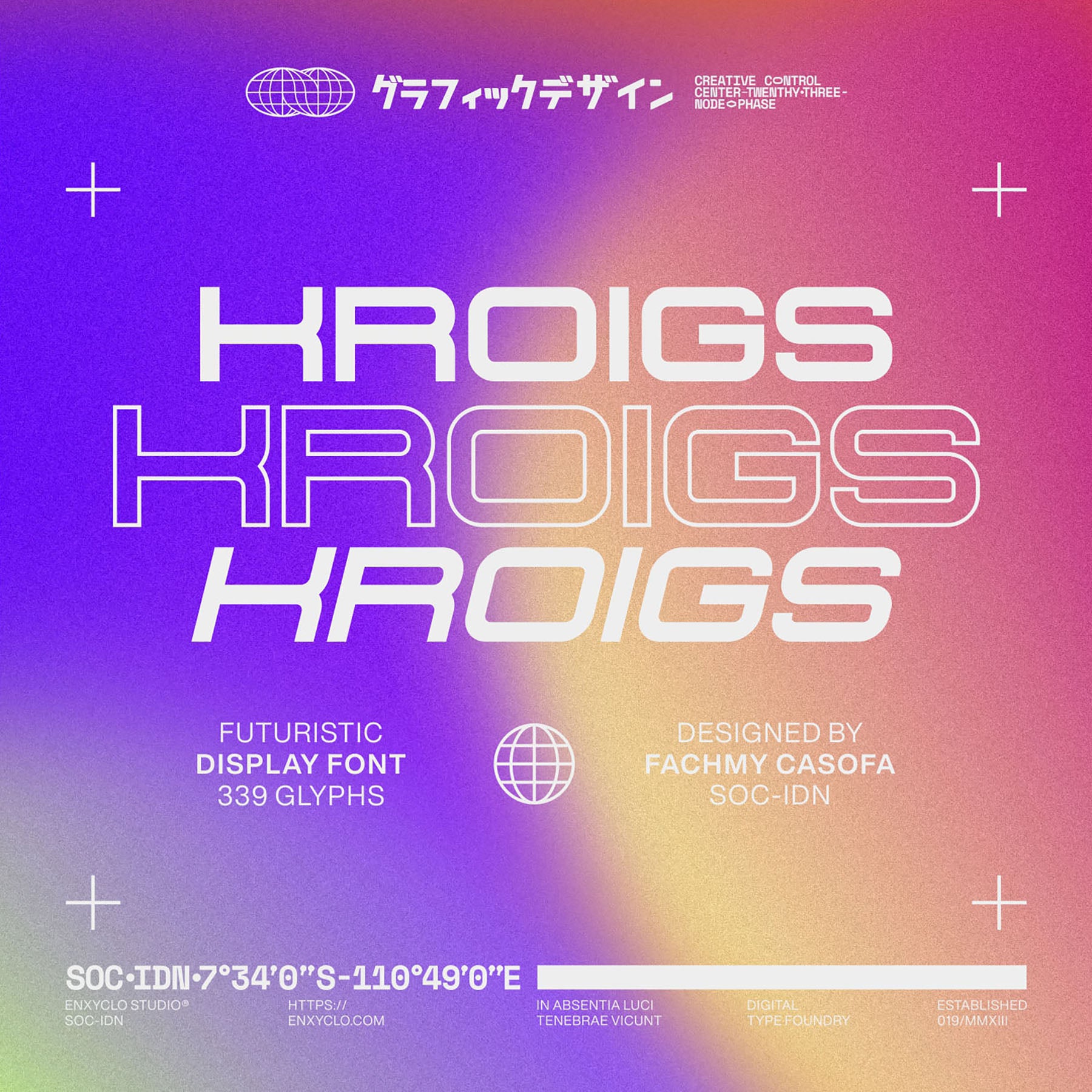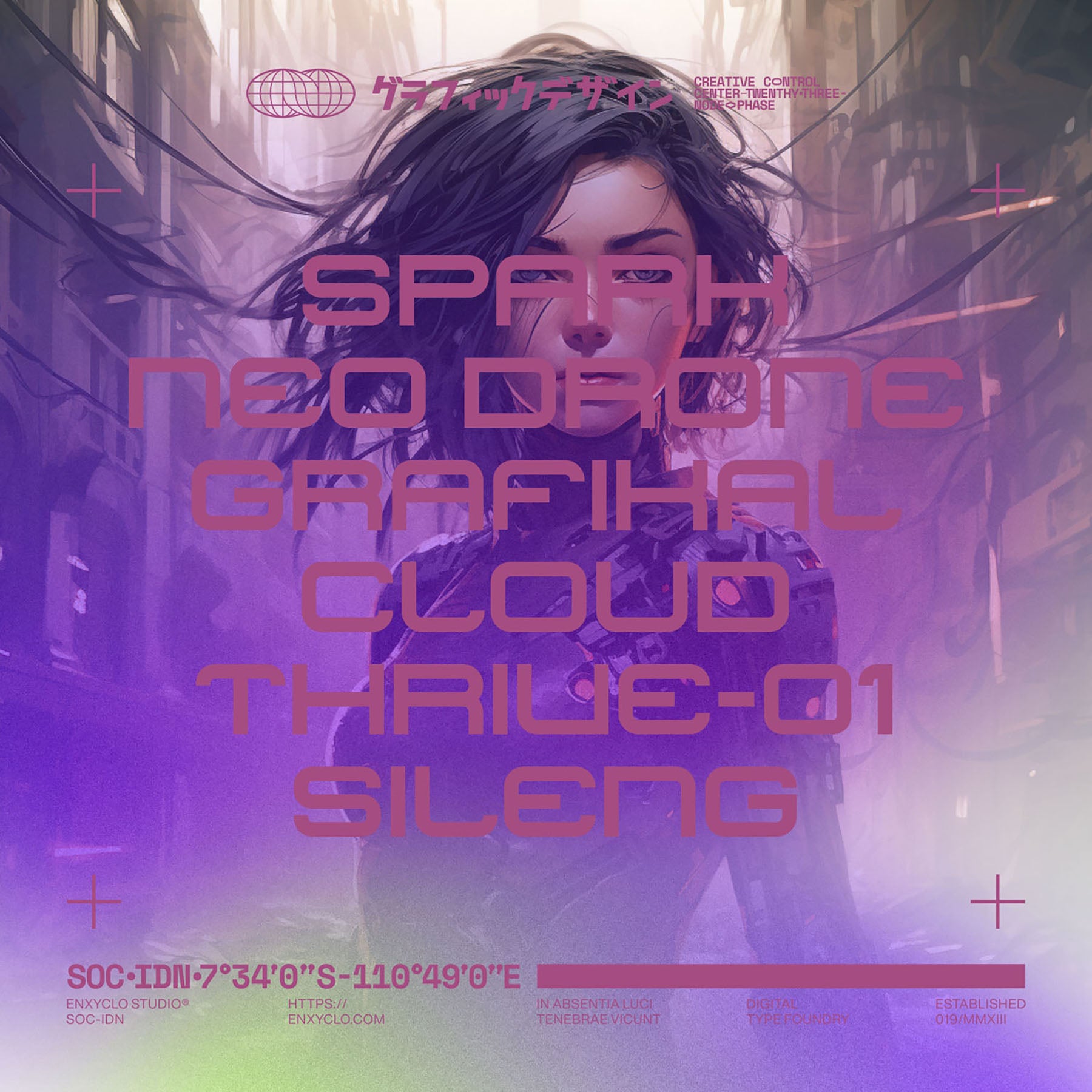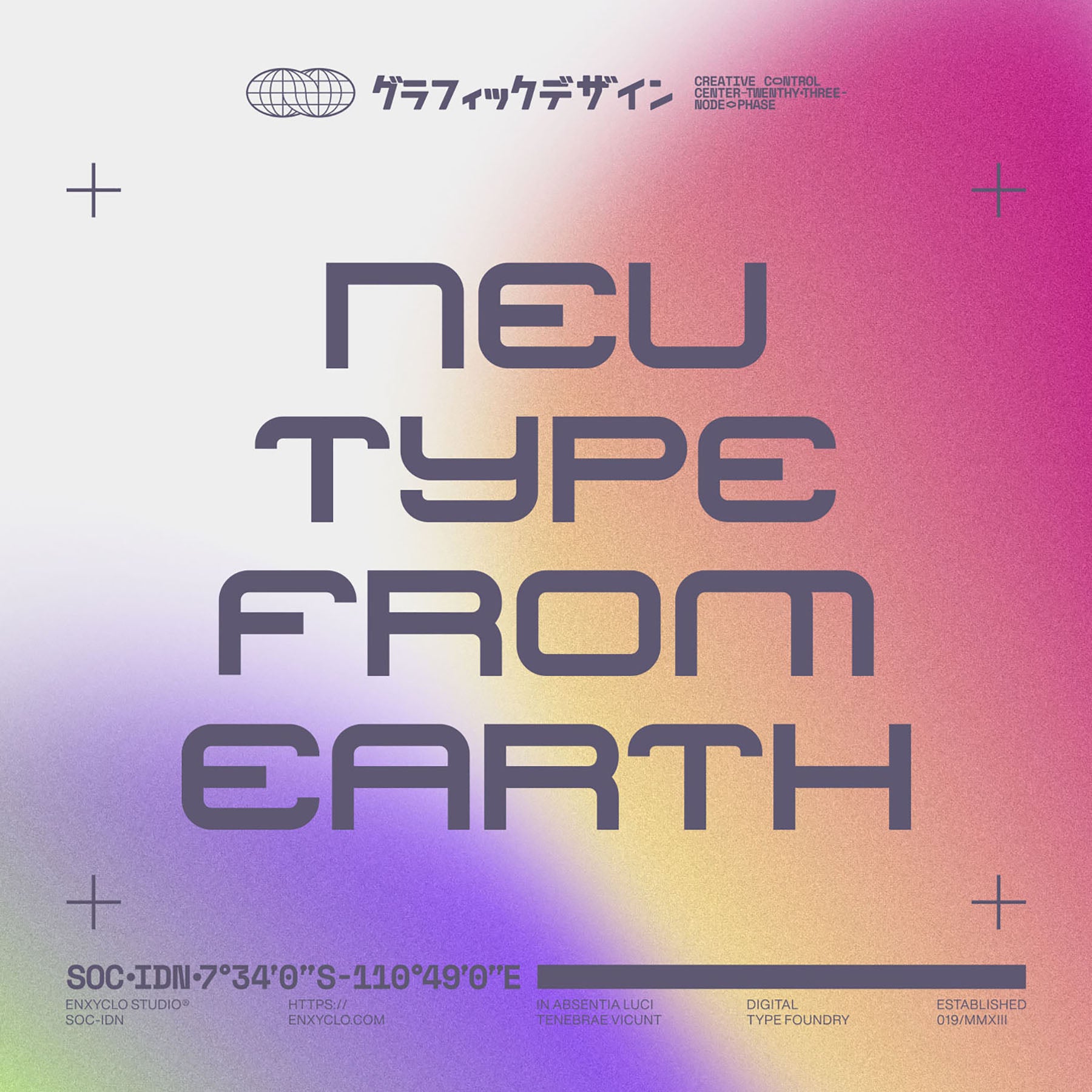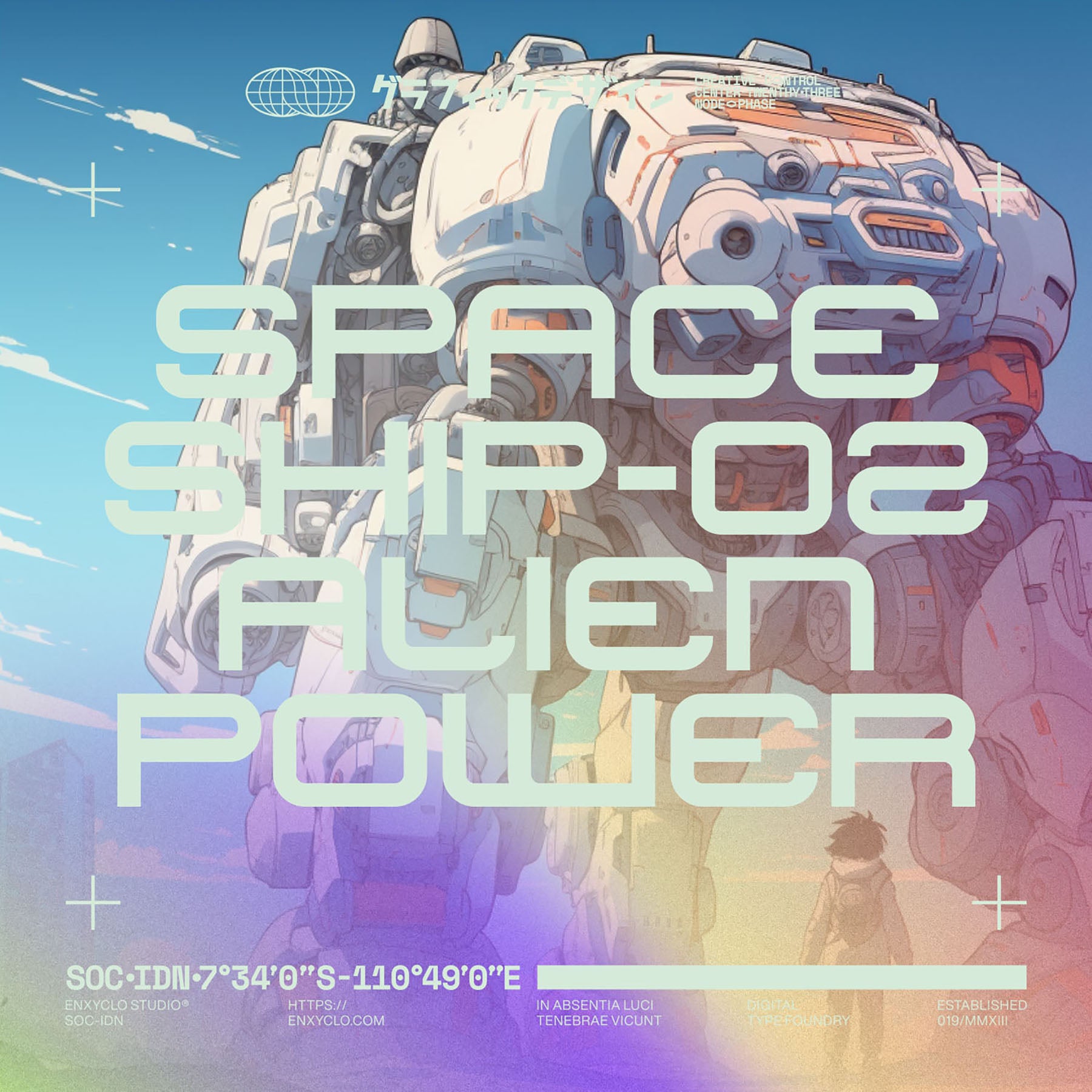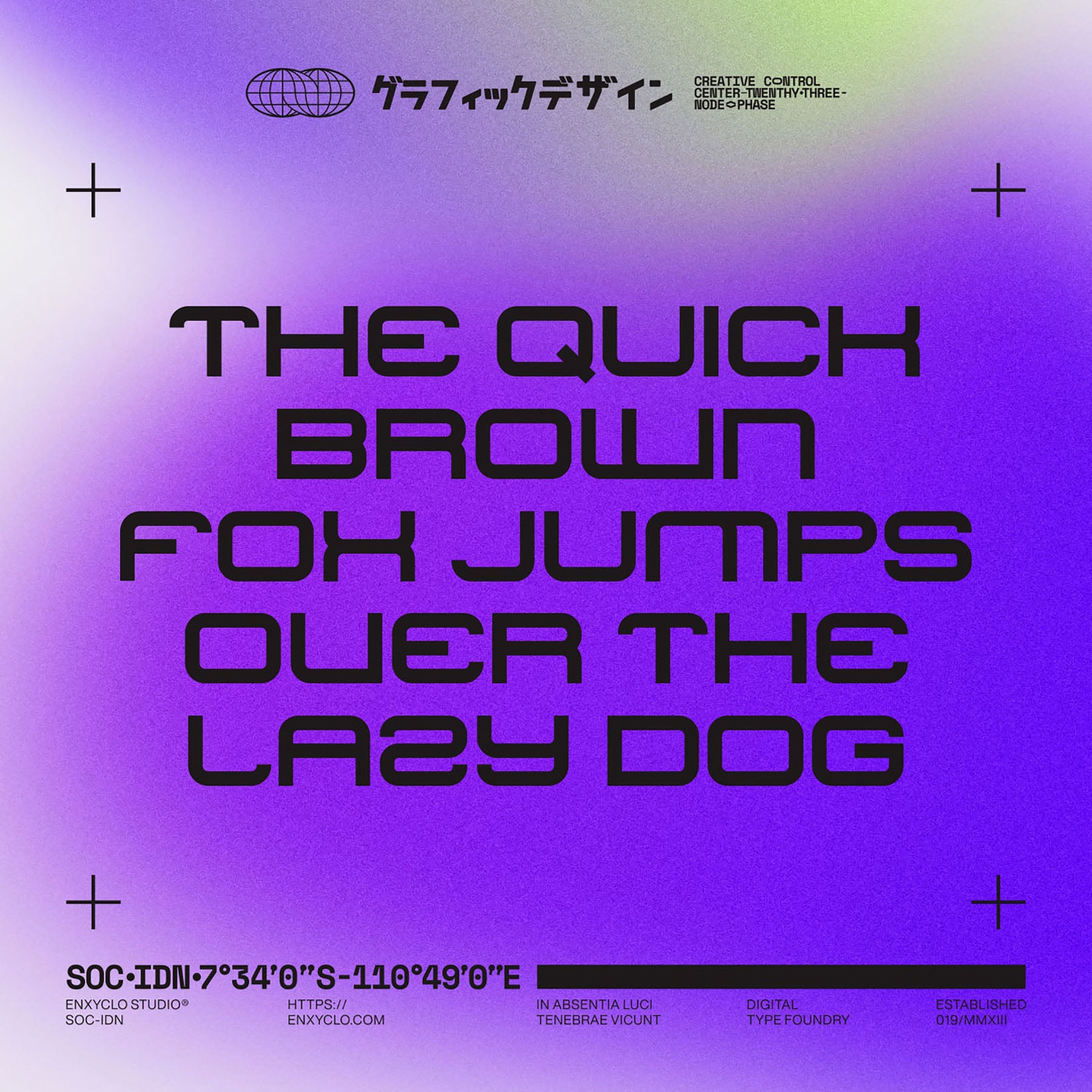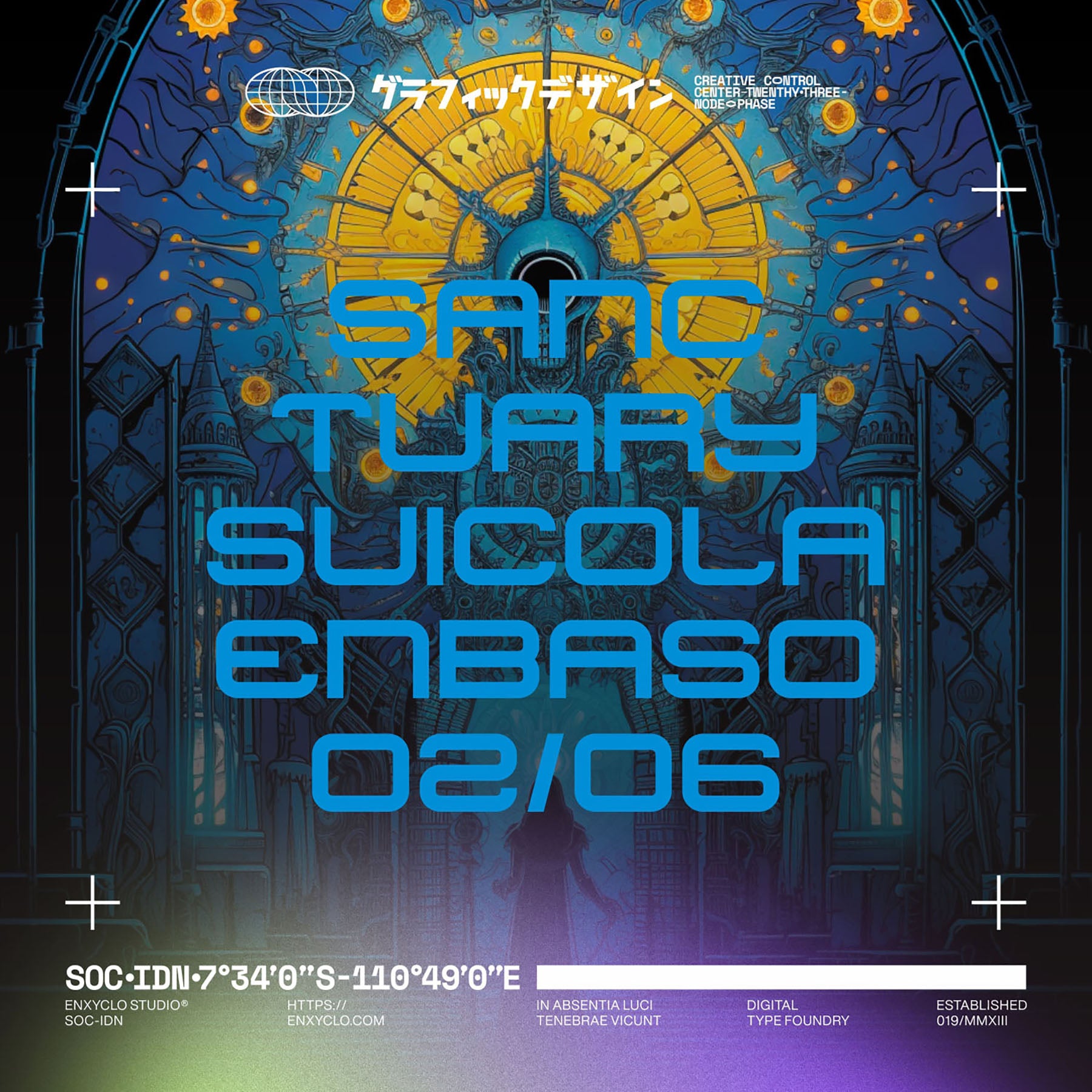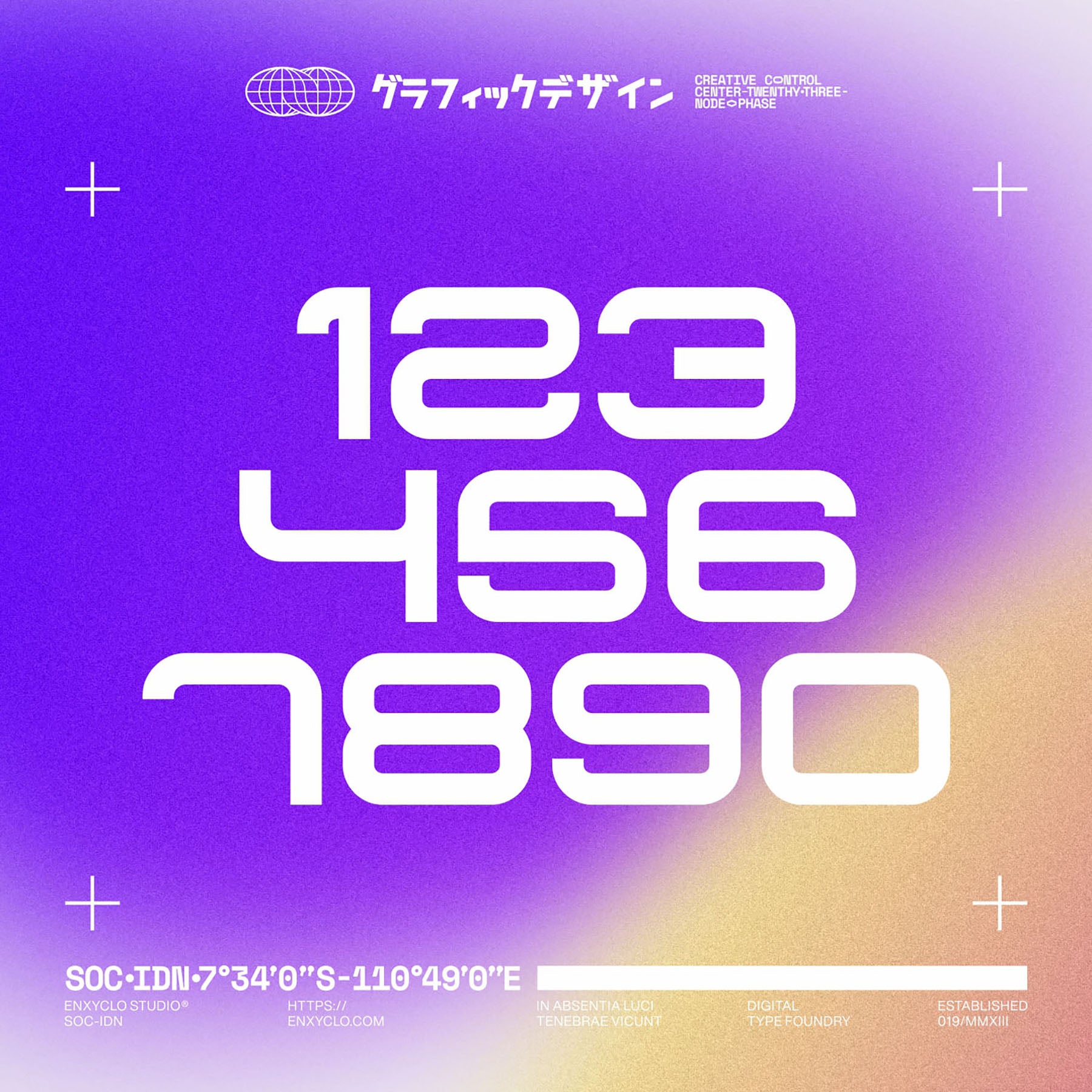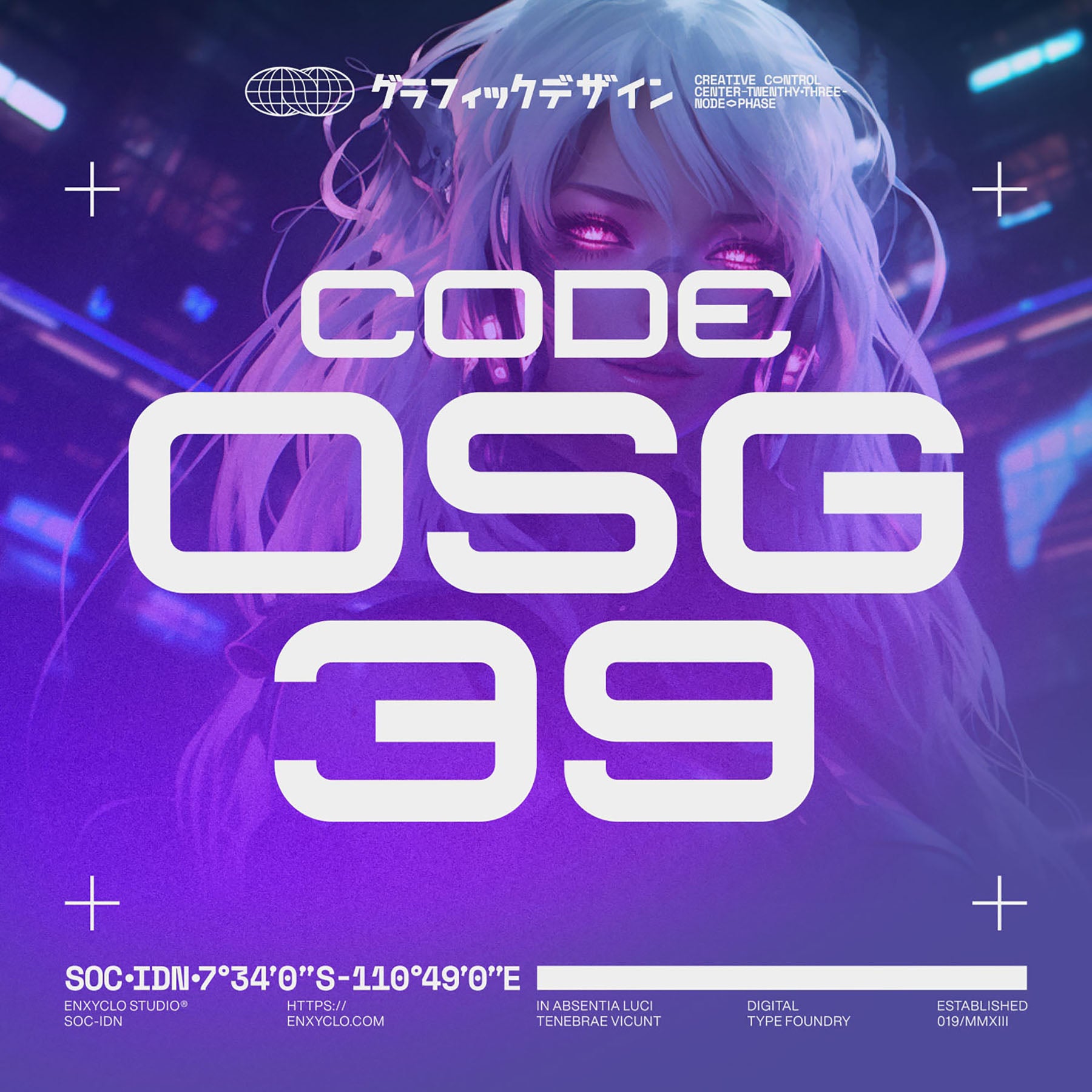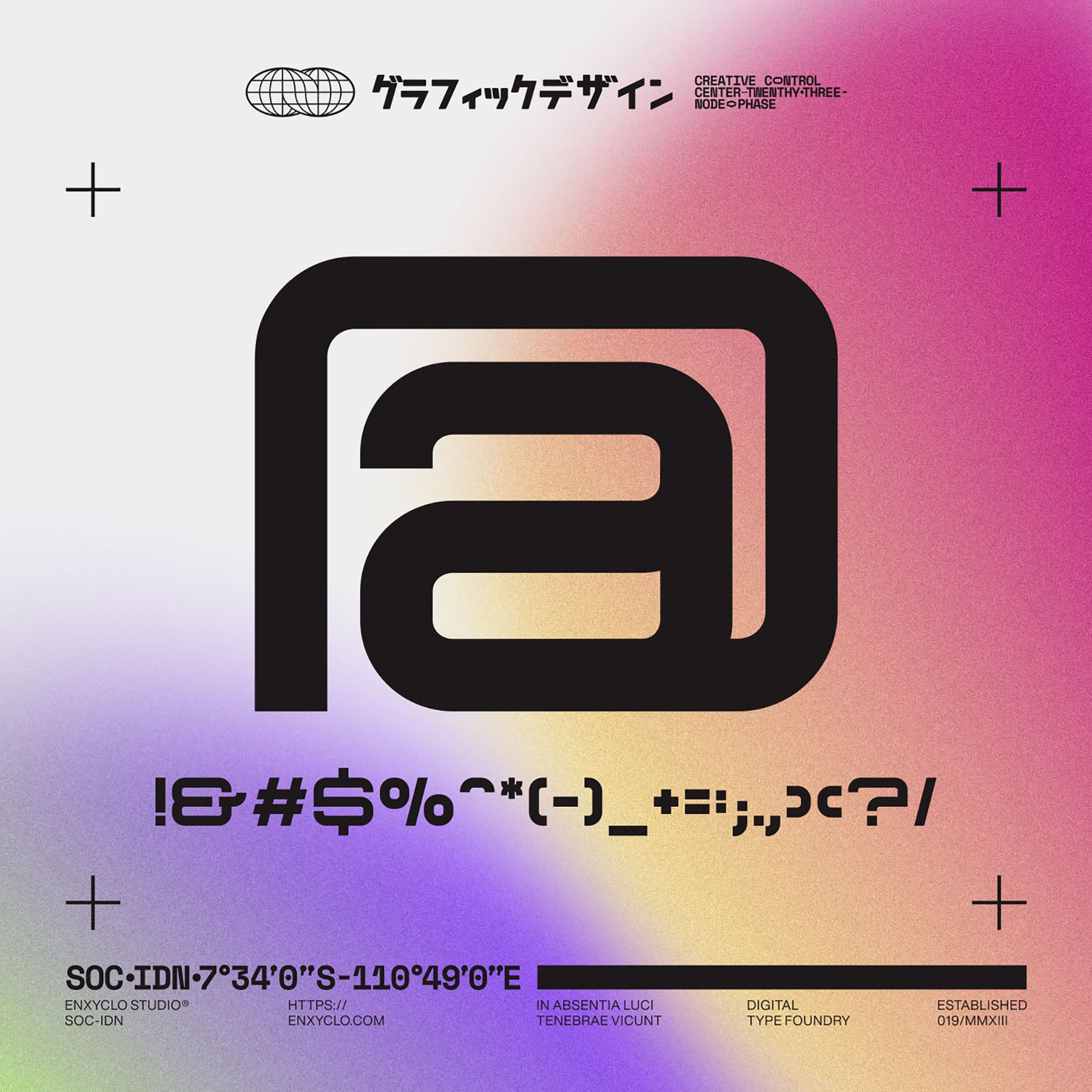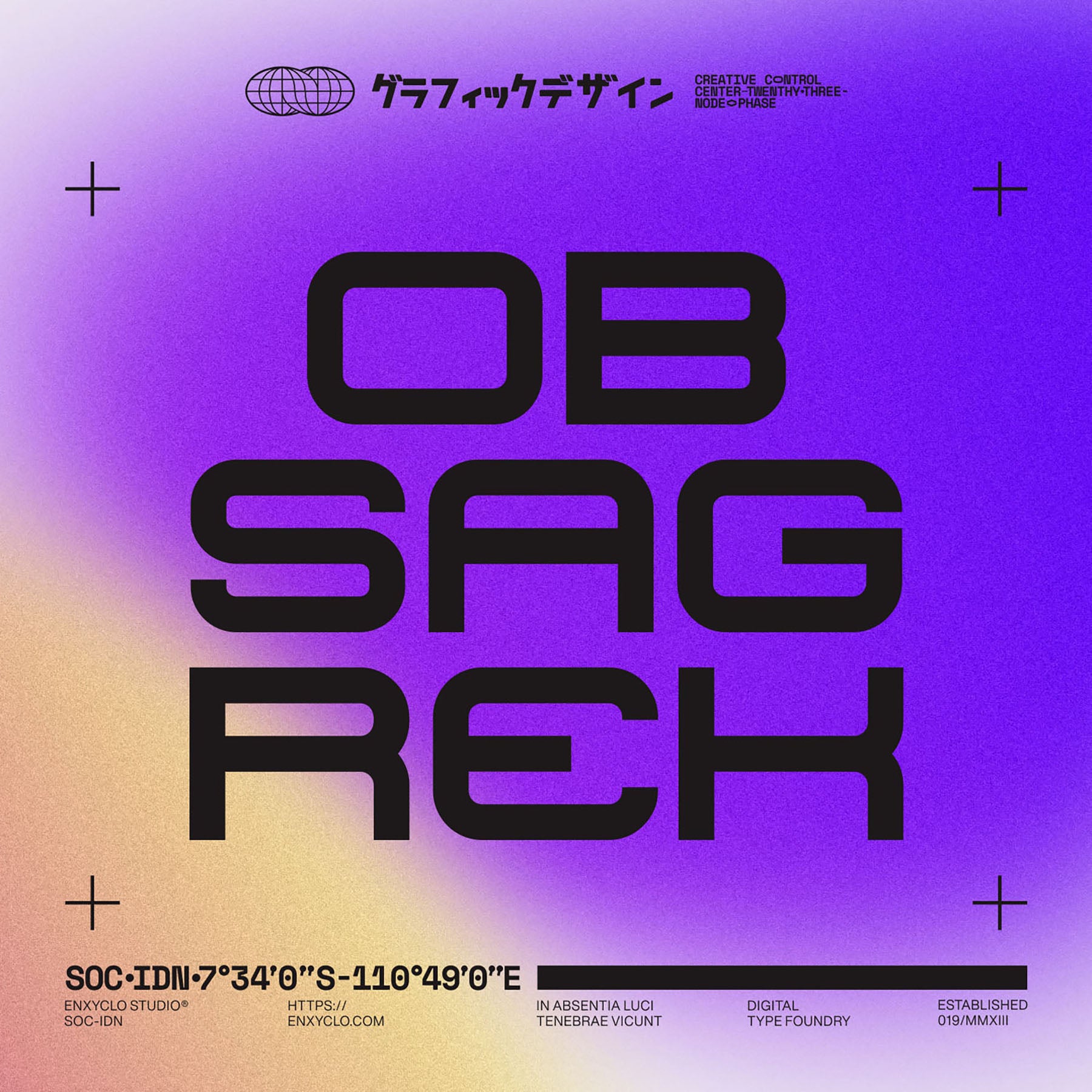
KROIGS Typeface
Introducing KROIGS: a font ahead of its time, embracing a futuristic display style. The meticulously crafted typeface enhances your project's impact and inspiration. Tailored for headlines, billboards, magazines, websites, titles, posters, branding, thumbnails, t-shirt and streetwear designs, creative logos, and any endeavor seeking a touch of futurism.
By harnessing the elegance of this captivating futuristic font, you can distinctly elevate your project above the norm. Explore the previews above for insights on unleashing its potential creatively.